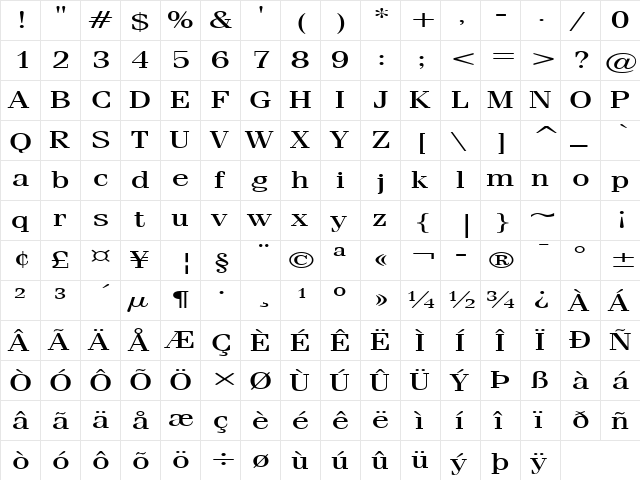
Feline Extended Normal
Design Context for Feline Extended Typeface
Feline Extended is a composed and adaptable typeface that performs quietly and consistently across a wide range of design contexts.